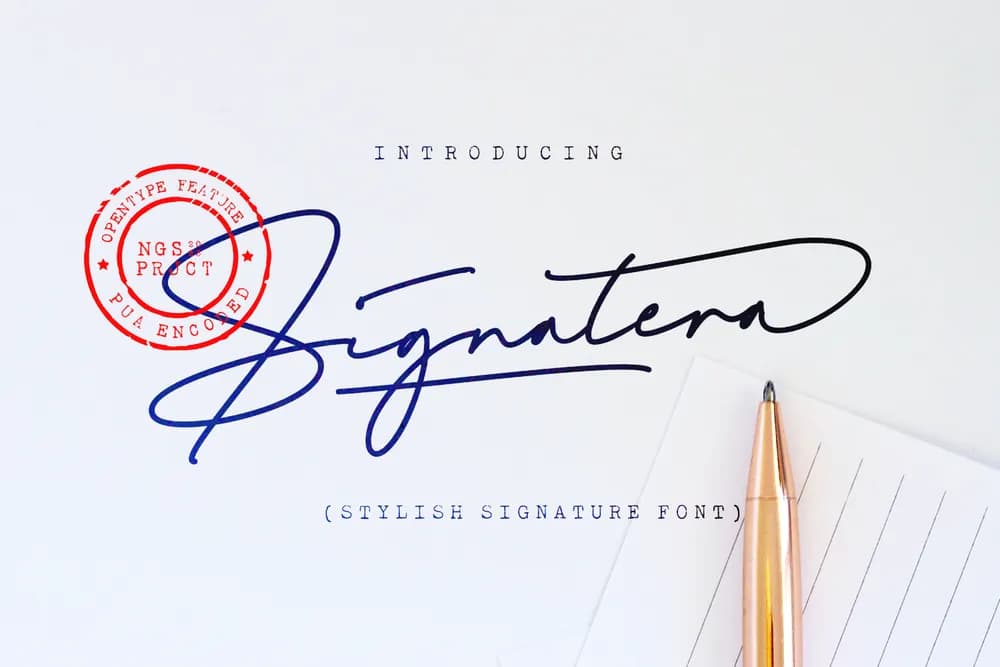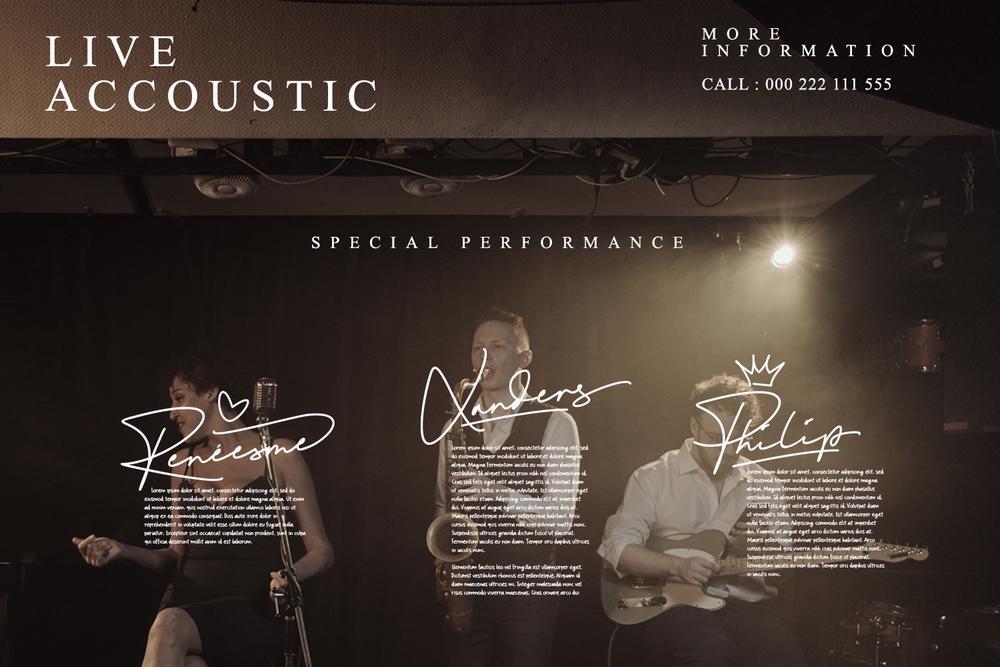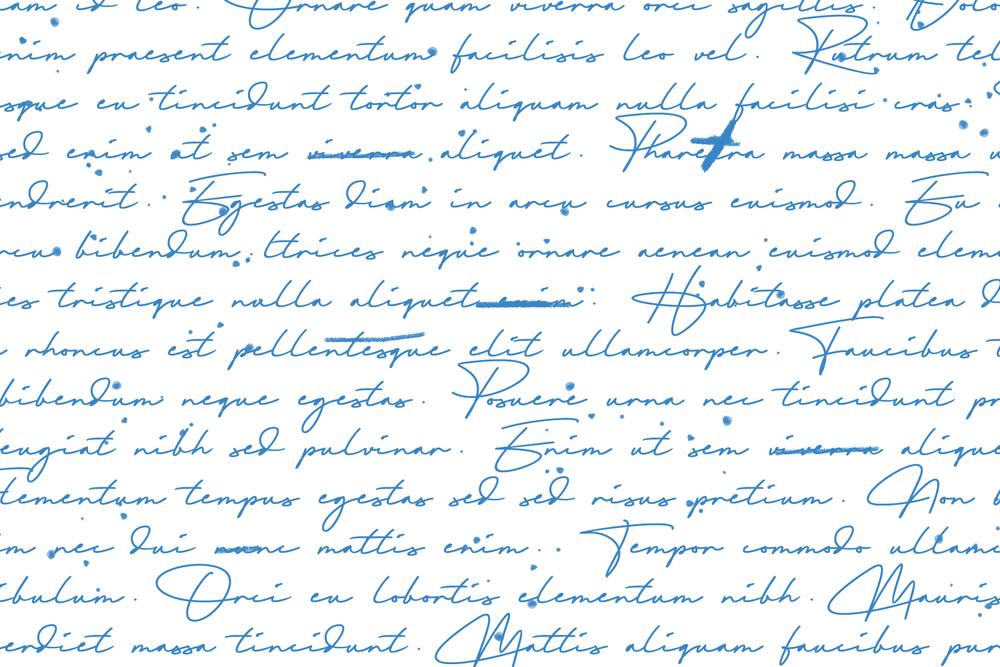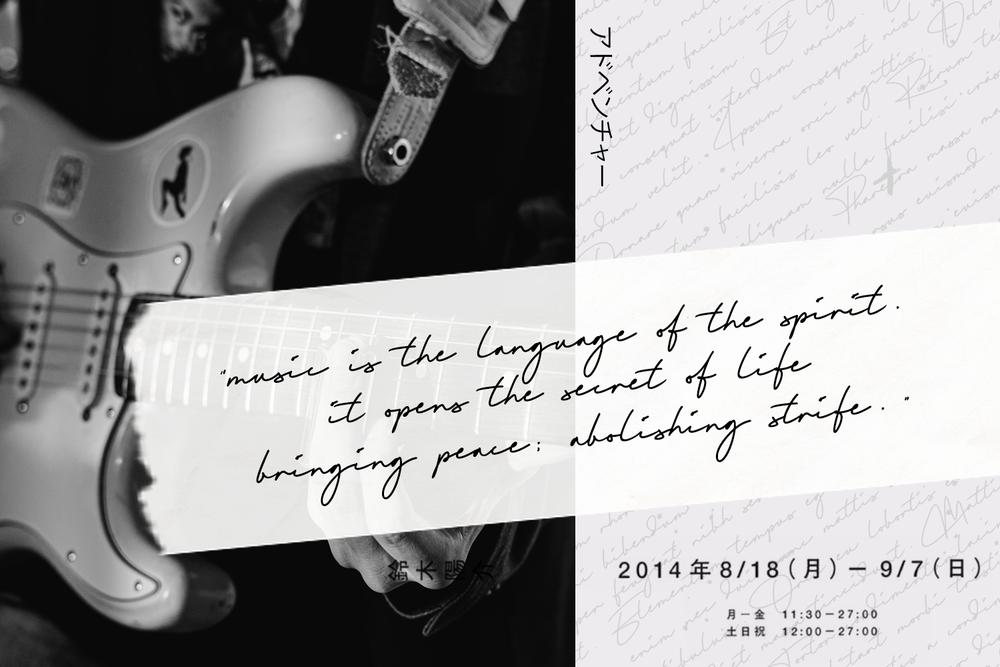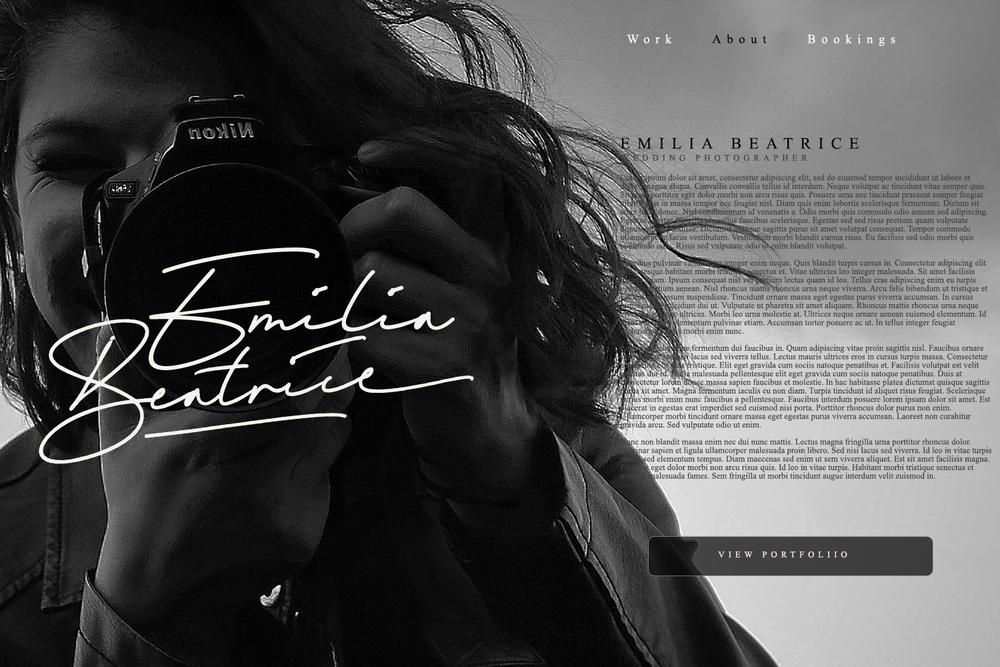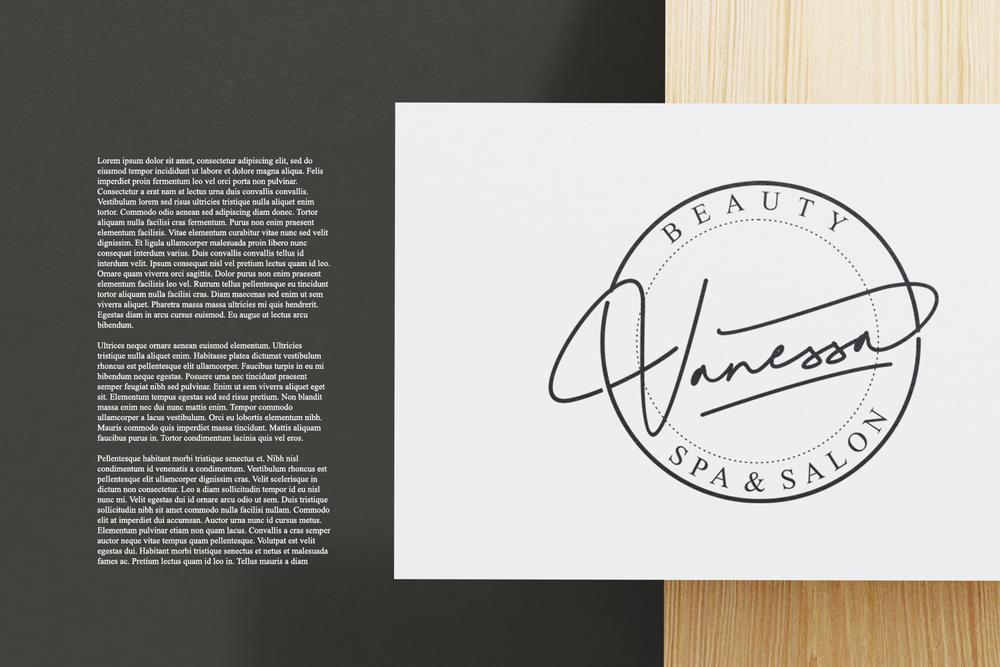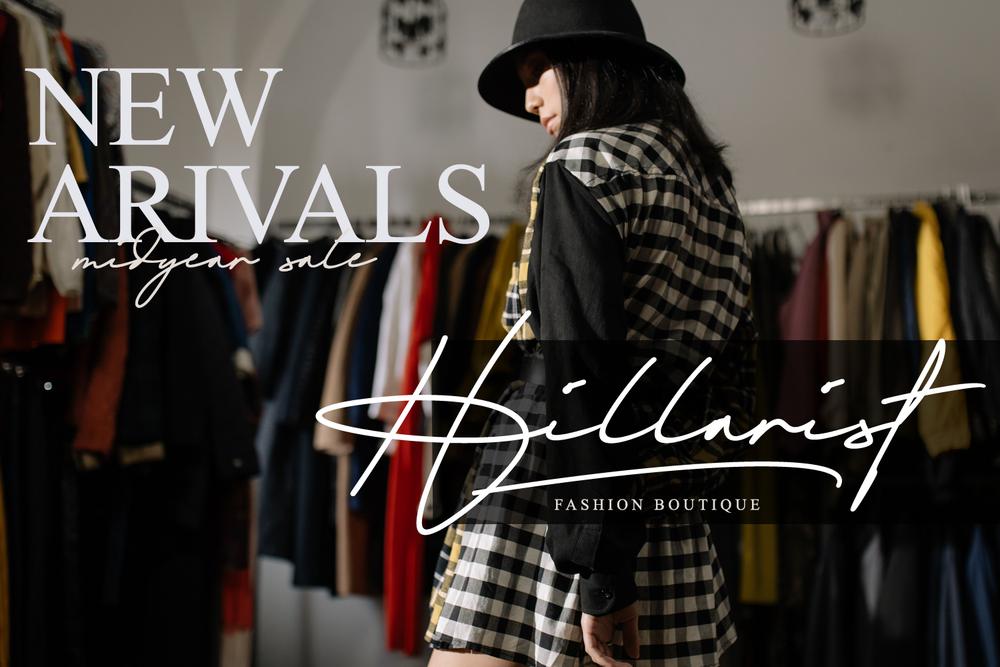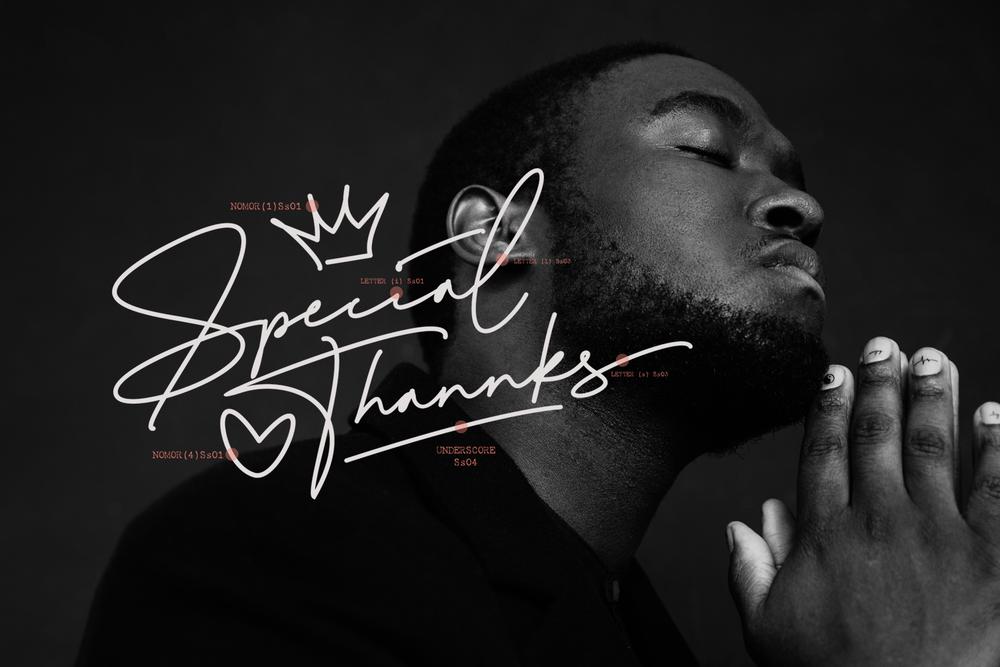
Proudly present Signatera is a elegant signature font that are very beautiful,luxurious,elegant and high class for logo font. This font is perfect for making fashion branding logos,book title,logo photography,watermark photography, social media, wedding invitations, taglines, headlines, and of course signatures. Product Content : TTF OTF WOFF Features : Uppercase and Lowercase Numerals Punctuations (OpenType Standard) Accents (Multilingual Characters) Ligatures and Alternative Style Stylistic Set Works on PC and Mac Simple installations